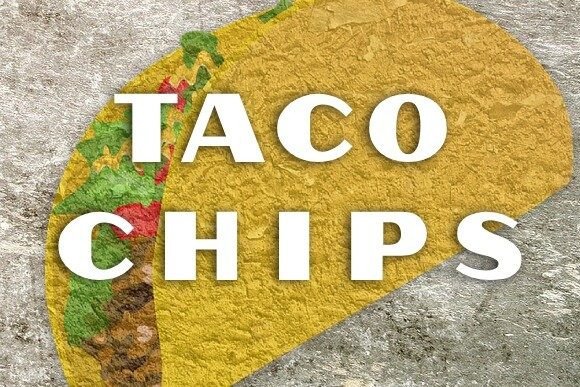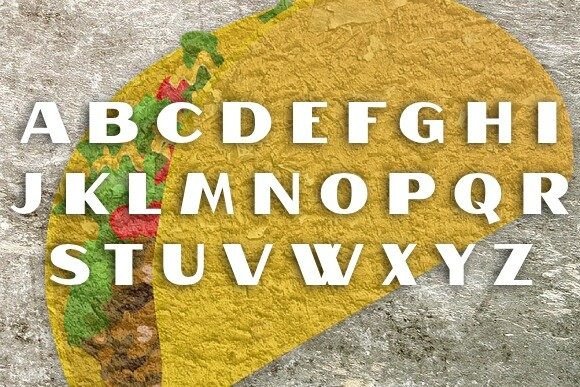
Introduction to Crisper Font
Crisper is an awesome sans-serif font that will fit on any of Your designs.
Use this font on posters, flyers, and t-shirts .